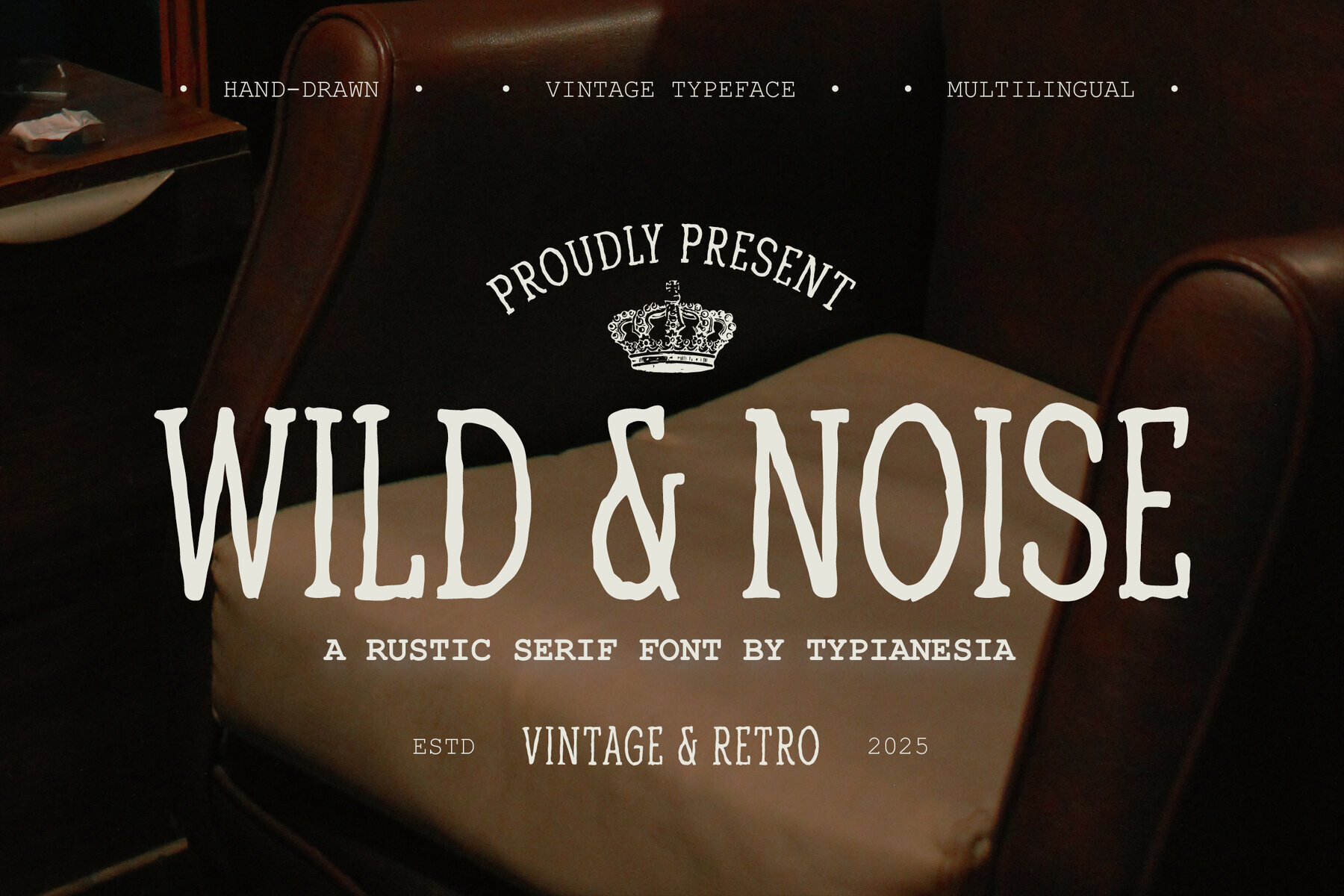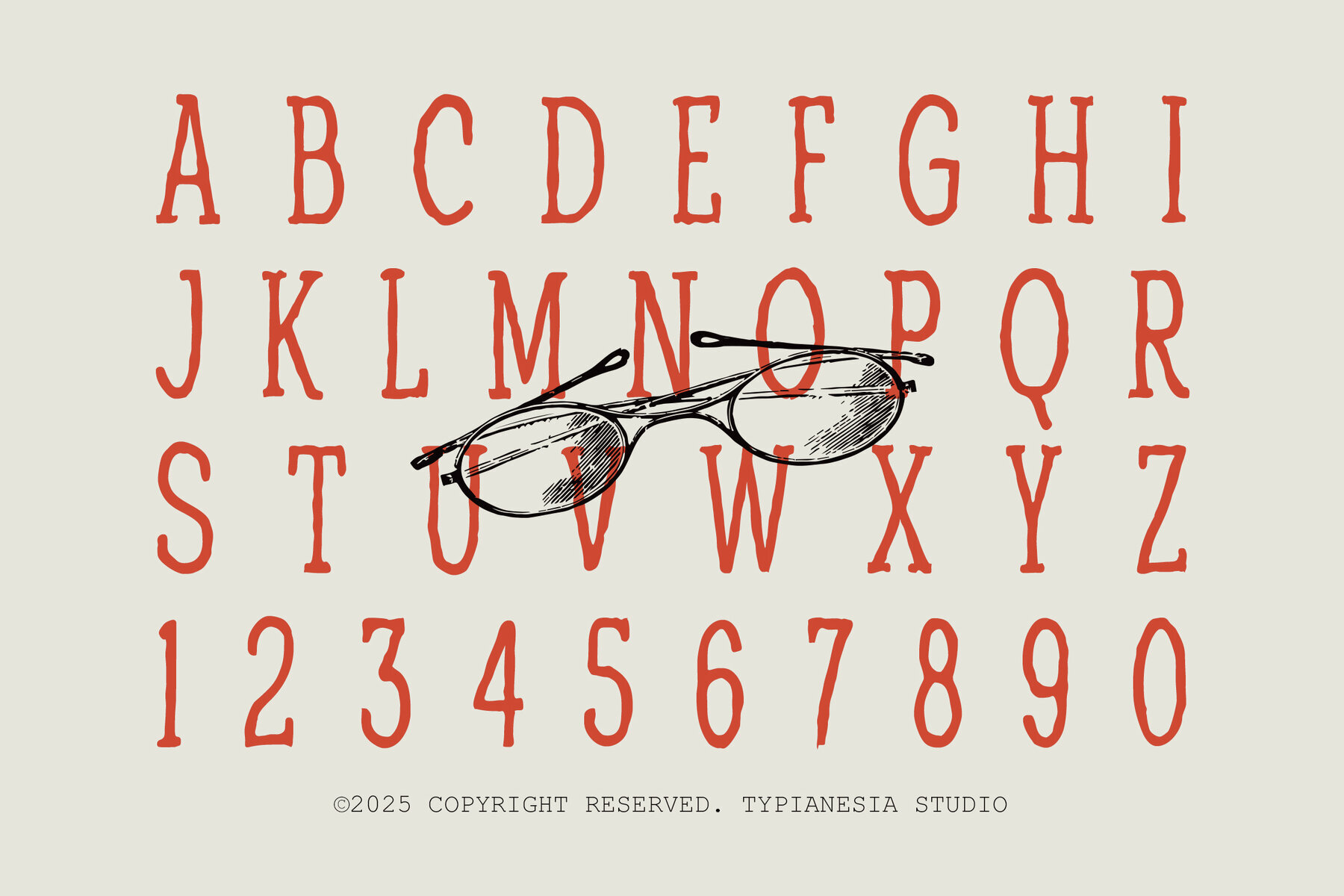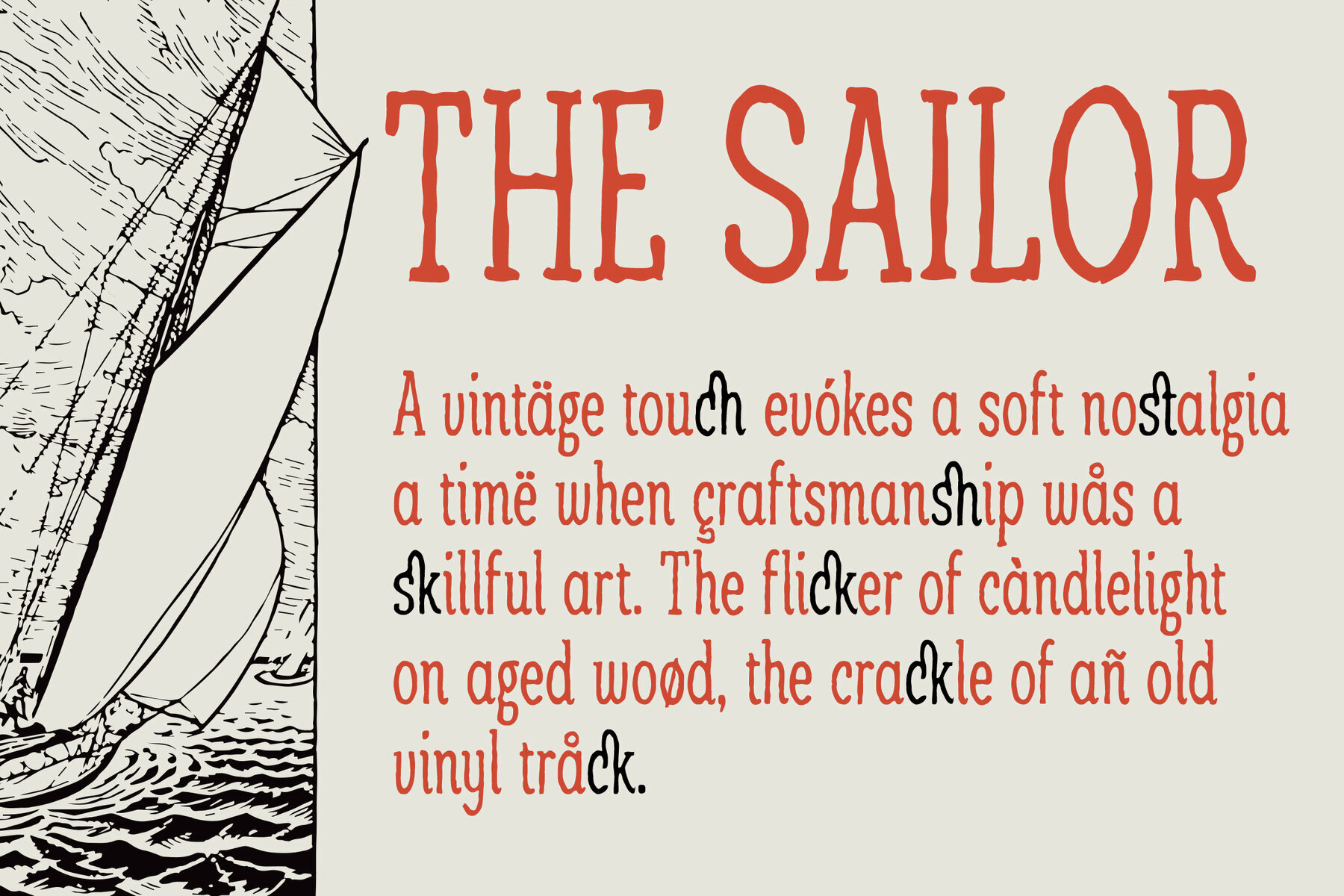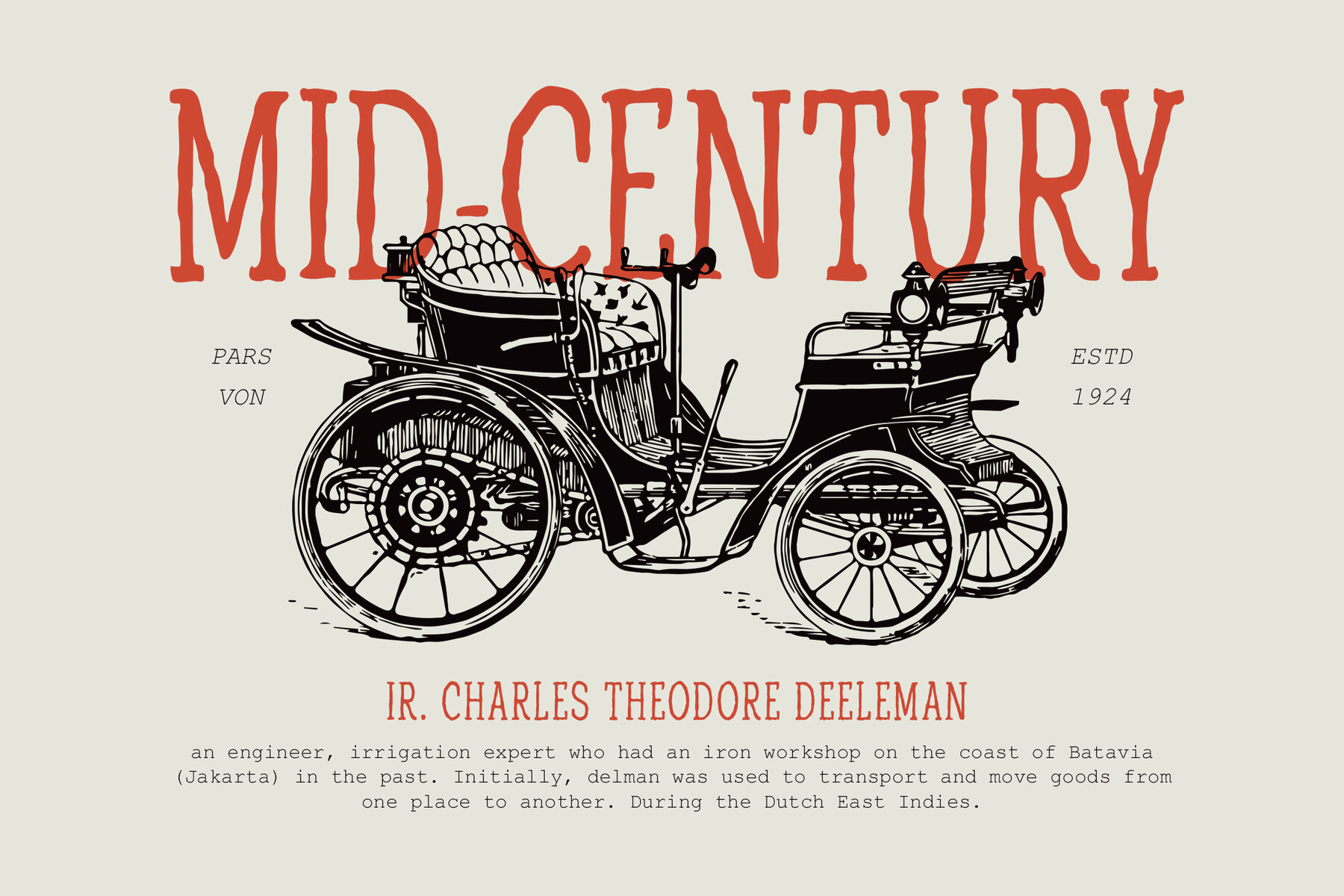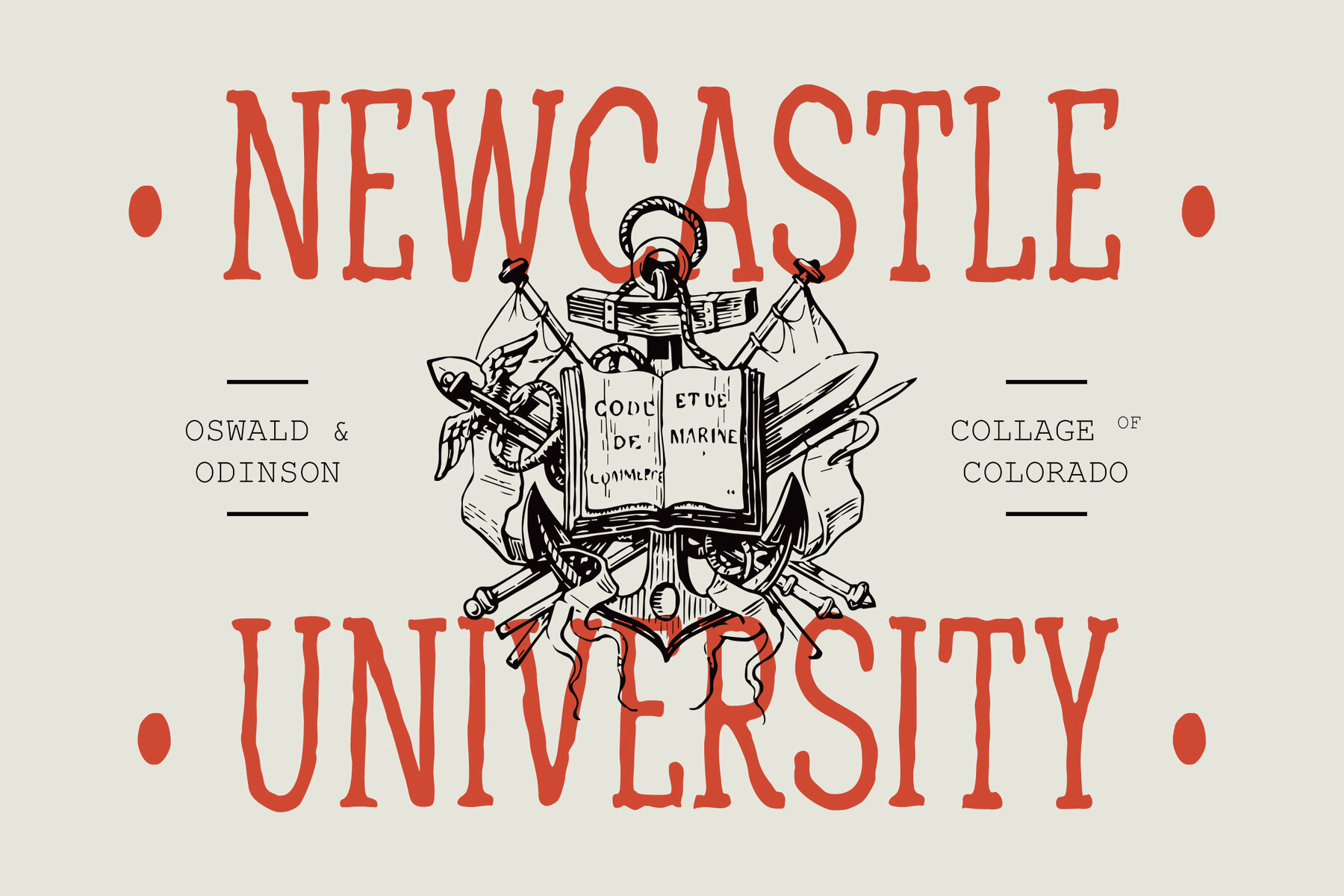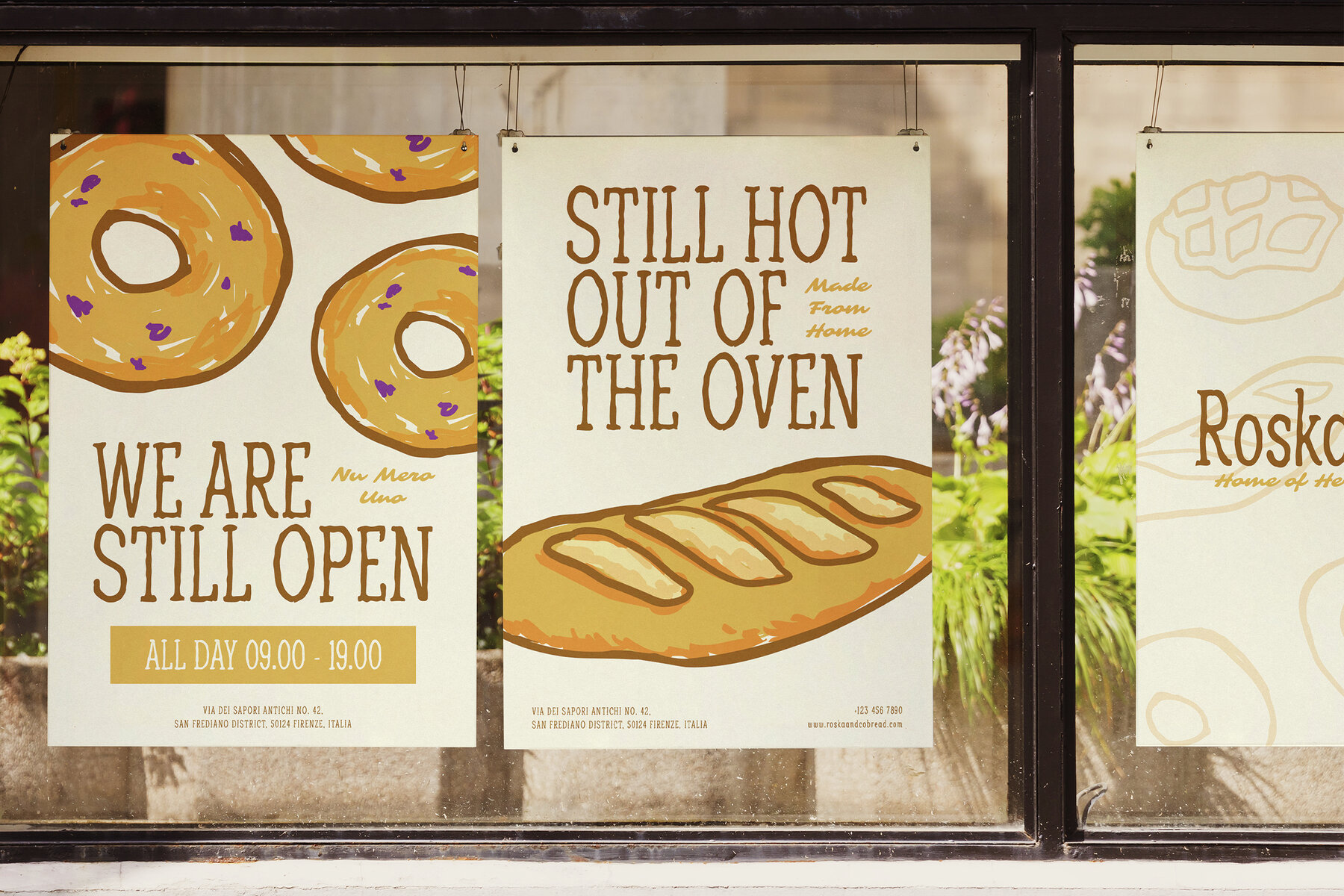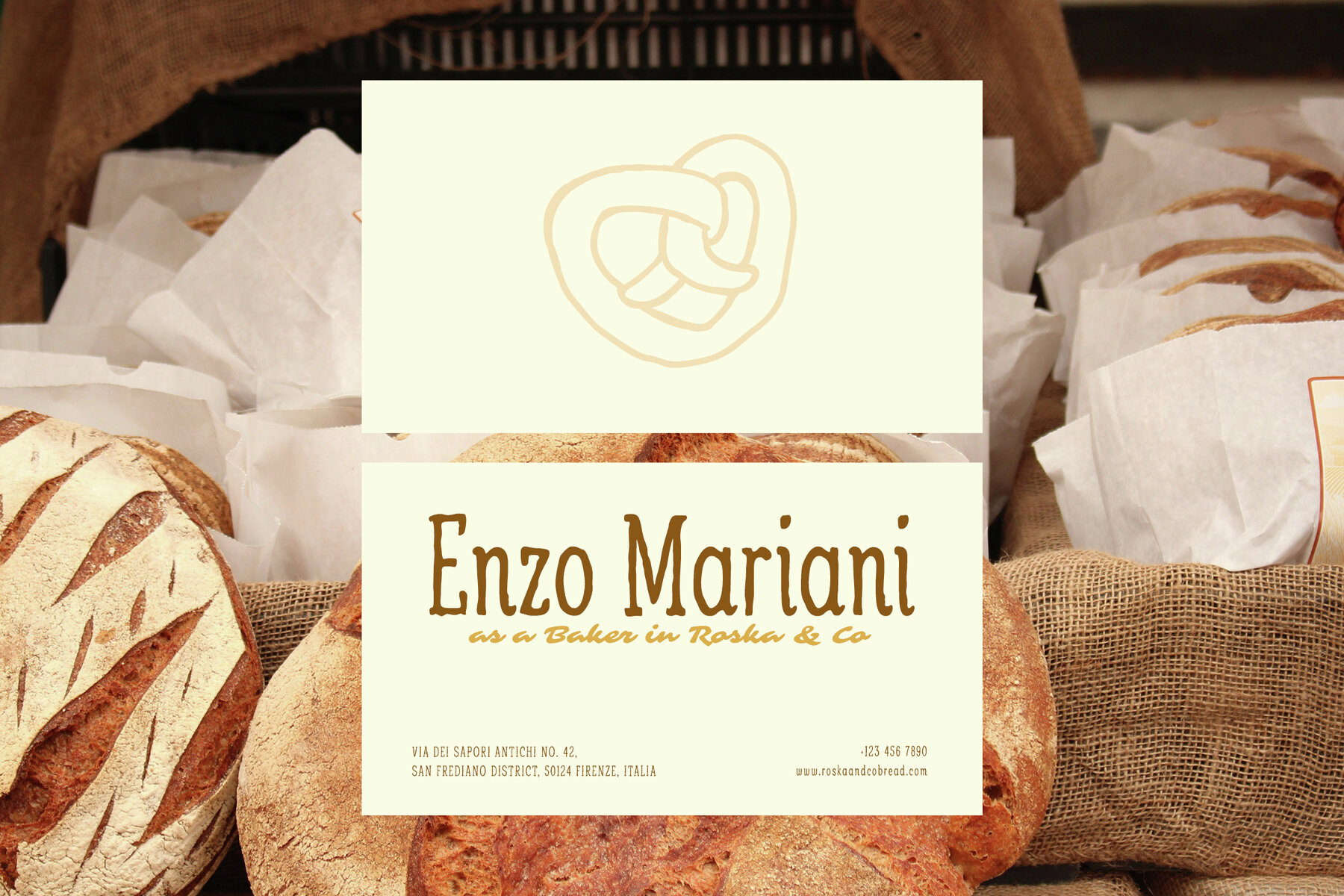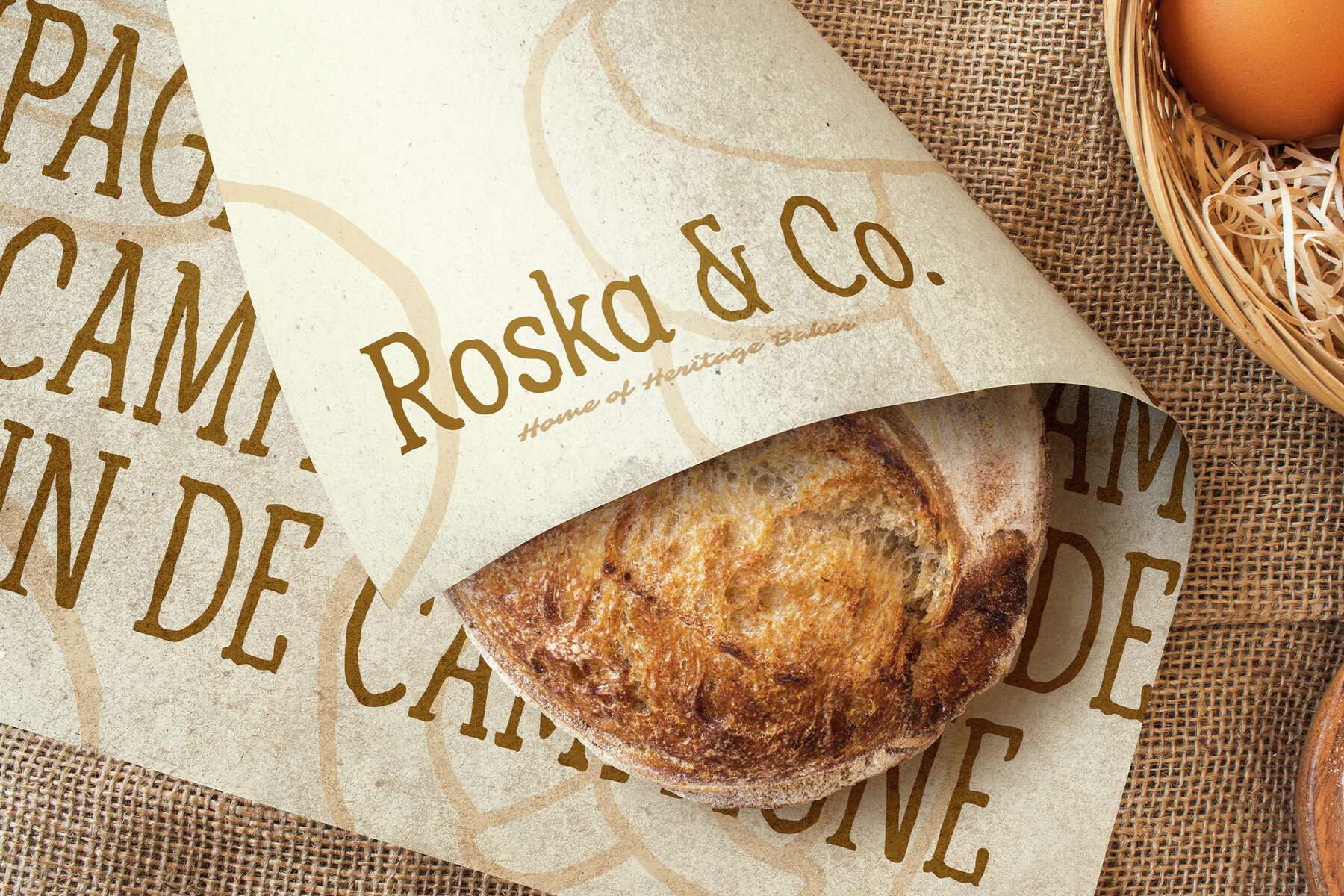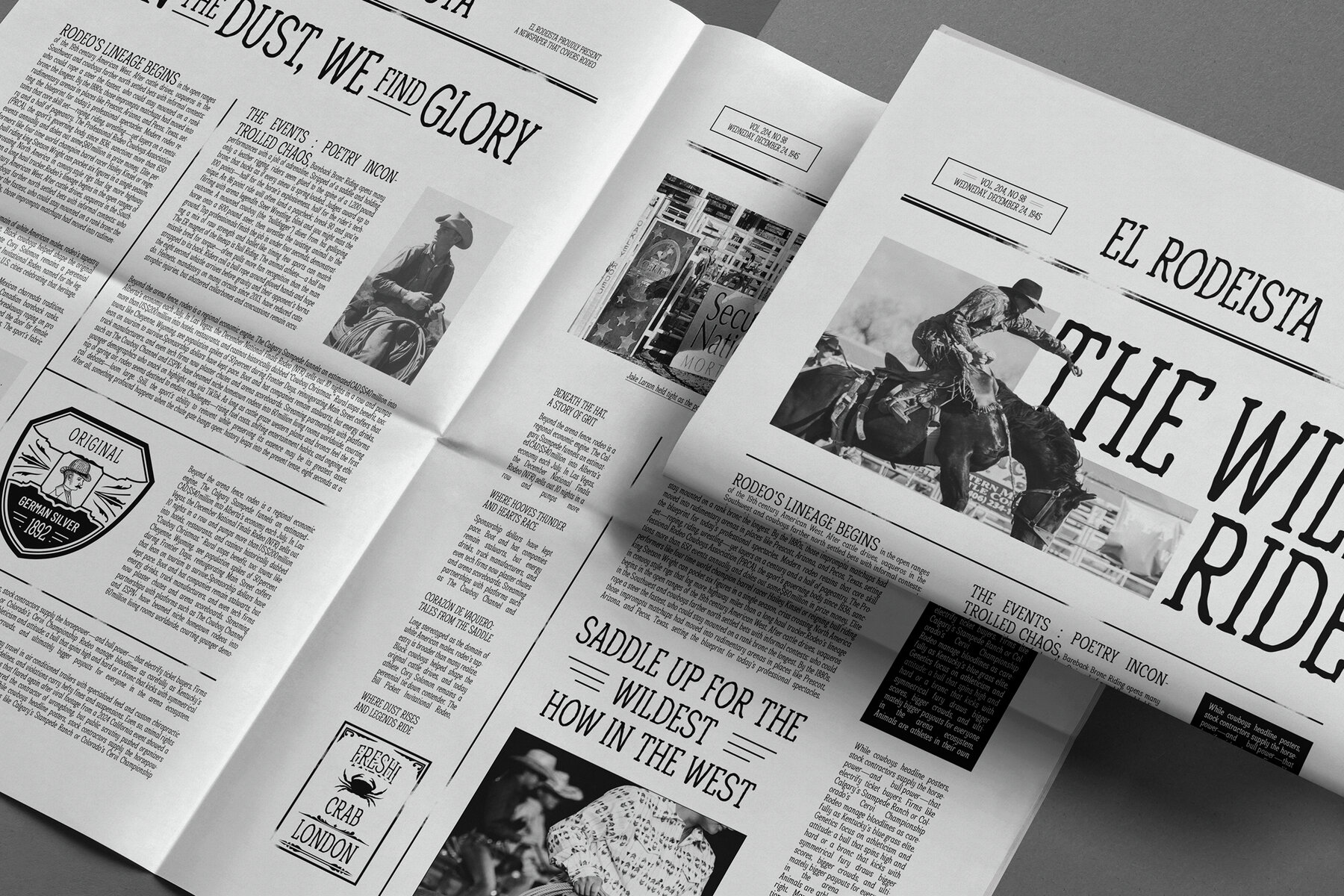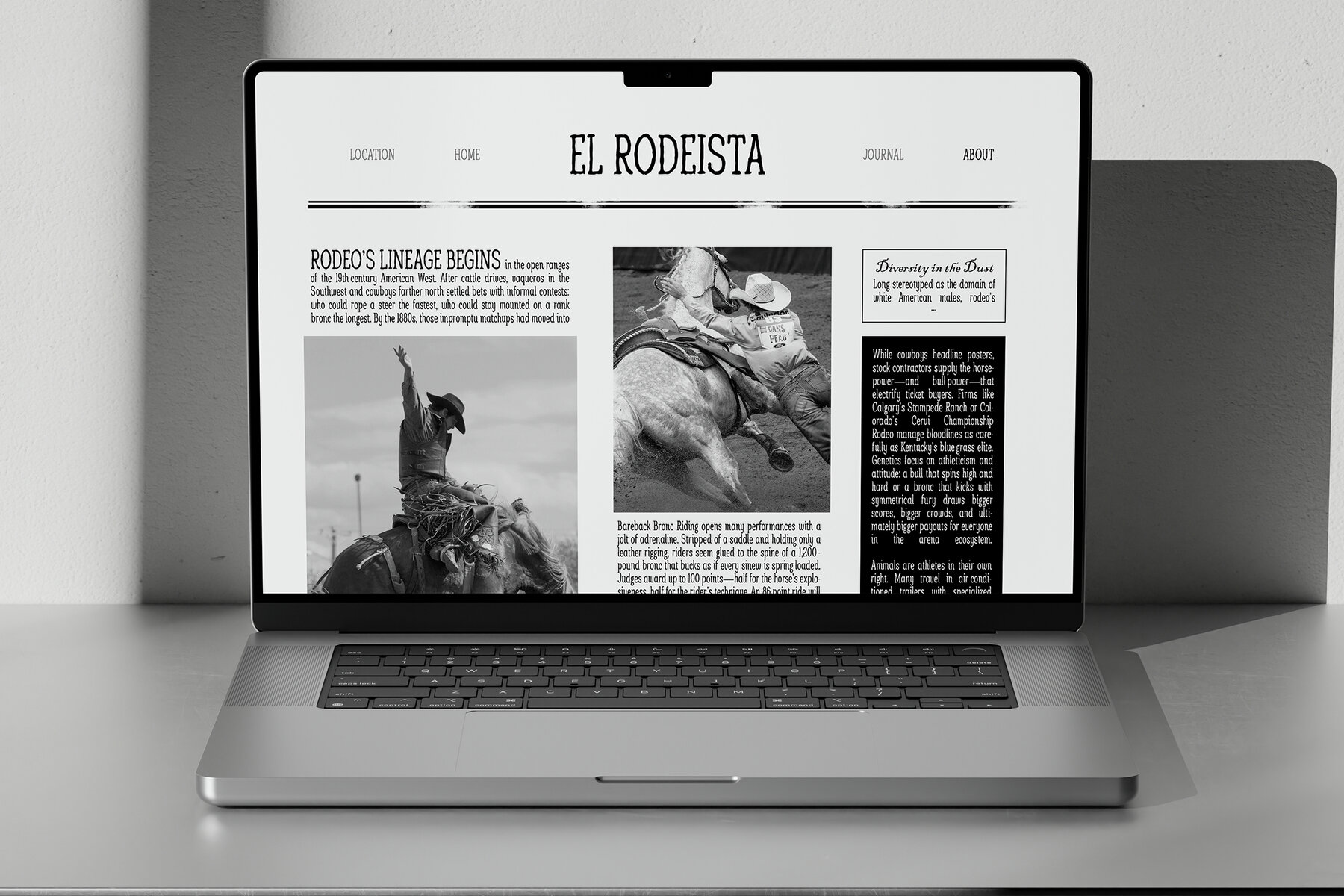
Wild and Noise Font
Wild & Noise is a carefully designed serif font that draws on vintage influences to offer a truly unique character. With its hand-drawn finish and subtle imperfections, the typeface introduces an organic, welcoming touch to various projects. Ideal for logos, branding, packaging, posters, newspapers, magazines, merchandise, and retro-themed designs, it provides a compelling aesthetic with a nostalgic twist. Features:Wild & Noise: Rustic Vintage Serif Typeface